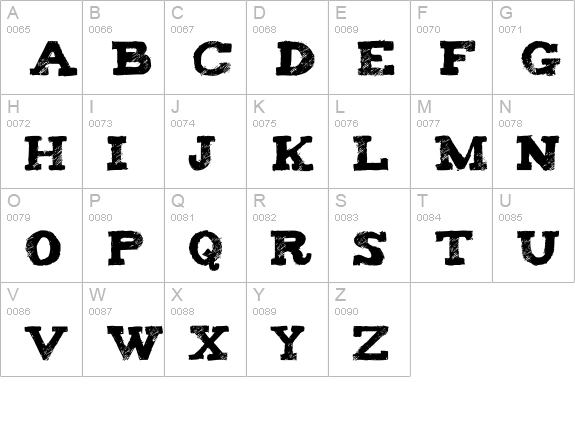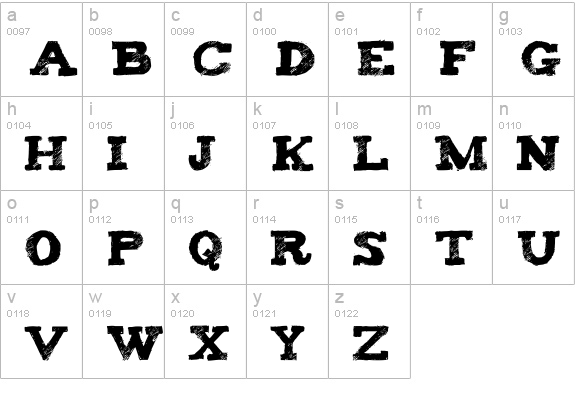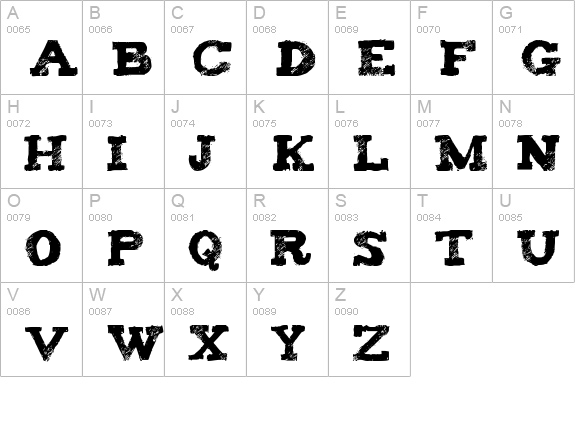
Tiza Font Details
Introducing Tiza font - a versatile and modern typeface that is sure to elevate your design projects to the next level. With its sleek and stylish appearance, Tiza font is perfect for various applications such as branding, advertising, packaging, and more. What sets Tiza font apart is not only its exceptional design but also the fact that it is available for free download at FontsMarket.com. Yes, you read that right - this premium quality font can be yours at no cost, making it a valuable addition to your font collection without breaking the bank. Whether you're a seasoned designer looking for a fresh font to add to your arsenal or a beginner searching for the perfect typeface to kickstart your projects, Tiza font is the ideal choice. Download it today and let your creativity soar with this fantastic font at your fingertips.